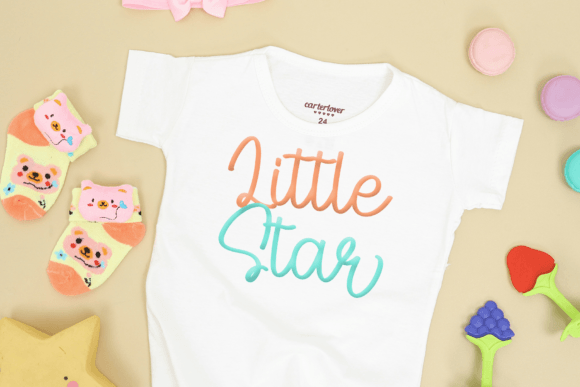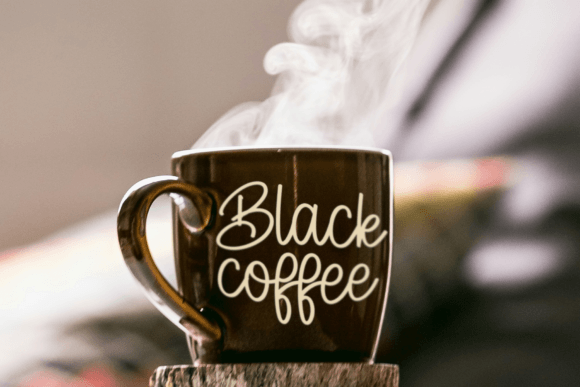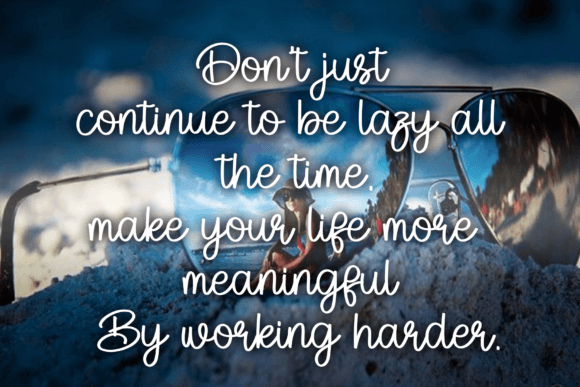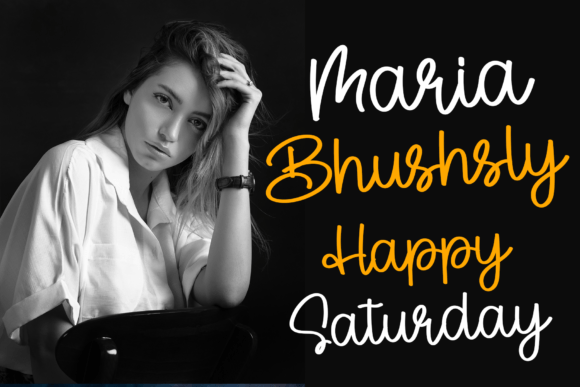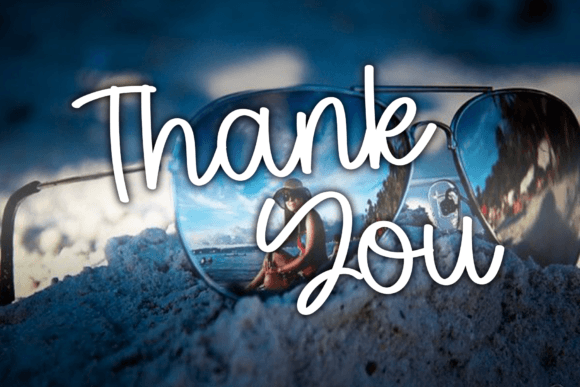
Summer Vibes in Every Line: The Magic of Beach Summer Font
Do you remember the feeling of excitement as you unwrapped your first summer vacation postcard, the smell of saltwater and sunscreen lingering in the air? That’s the exact atmosphere Beach Summer Font aims to evoke in your designs.
This festive and happy typeface is designed to capture the carefree spirit of the holiday season. With its decorative elements and unique flair, Beach Summer Font adds a touch of charm to your greeting cards, gift labels, and holiday-themed projects. Perfect for designers looking to infuse a cheerful and nostalgic atmosphere into their words, this font is a must-have for any creative looking to bring a taste of summer into their work.
- Unique Characteristics: The Beach Summer Font features a unique, hand-drawn design with a relaxed, summer vibe, making it perfect for beach-themed projects, travel brochures, and outdoor advertisements.
Designer Review: Beach Summer Font
Overall, I think the Beach Summer Font is a solid choice for projects that require a light, airy feel. ✨ The font’s rounded edges and gentle curves evoke a sense of relaxation, making it perfect for beach-themed designs, summer campaigns, or any project that needs to convey a carefree vibe.
The Beach Summer Font also features a good range of weights and styles, which is great for designers who need to create custom typography. ✨ The font’s versatility is a major plus, allowing designers to experiment with different combinations of weights and styles to achieve the desired effect.
However, there are some limitations to the Beach Summer Font that designers should be aware of. ⚠️ For one, the font’s legibility can be an issue at smaller font sizes. The rounded edges and curves that make the font so visually appealing can also make it harder to read at certain sizes. Additionally, the font’s lack of italics and obliques can limit its use in certain design contexts.
Key Features:
- Light, airy feel
- Rounded edges and gentle curves
- Good range of weights and styles
- Versatile and easy to use
- Legibility issues at smaller font sizes
- Lack of italics and obliques
Getting the Most Out of Beach Summer Font
To get the most out of Beach Summer Font, use it in combination with other summer-themed graphics and colors, such as pastel shades and nautical icons. Consider using it for summer-themed projects, such as beach party invitations, summer vacation brochures, or social media graphics.
Beach Summer Font is commonly used for:
- Summer-themed projects
- Beach party invitations
- Summer vacation brochures
- Social media graphics
Alternative Fonts to Beach Summer Font
Great Vibes Font is a modern, cursive script font that captures the carefree spirit of summer. It’s perfect for designing beach-themed brochures, travel websites, or social media posts that evoke a sense of adventure and relaxation.
Compared to Beach Summer Font, Great Vibes Font has a more playful and energetic feel, making it ideal for younger audiences. While Beach Summer Font has a softer, more vintage vibe, Great Vibes Font is bolder and more attention-grabbing.